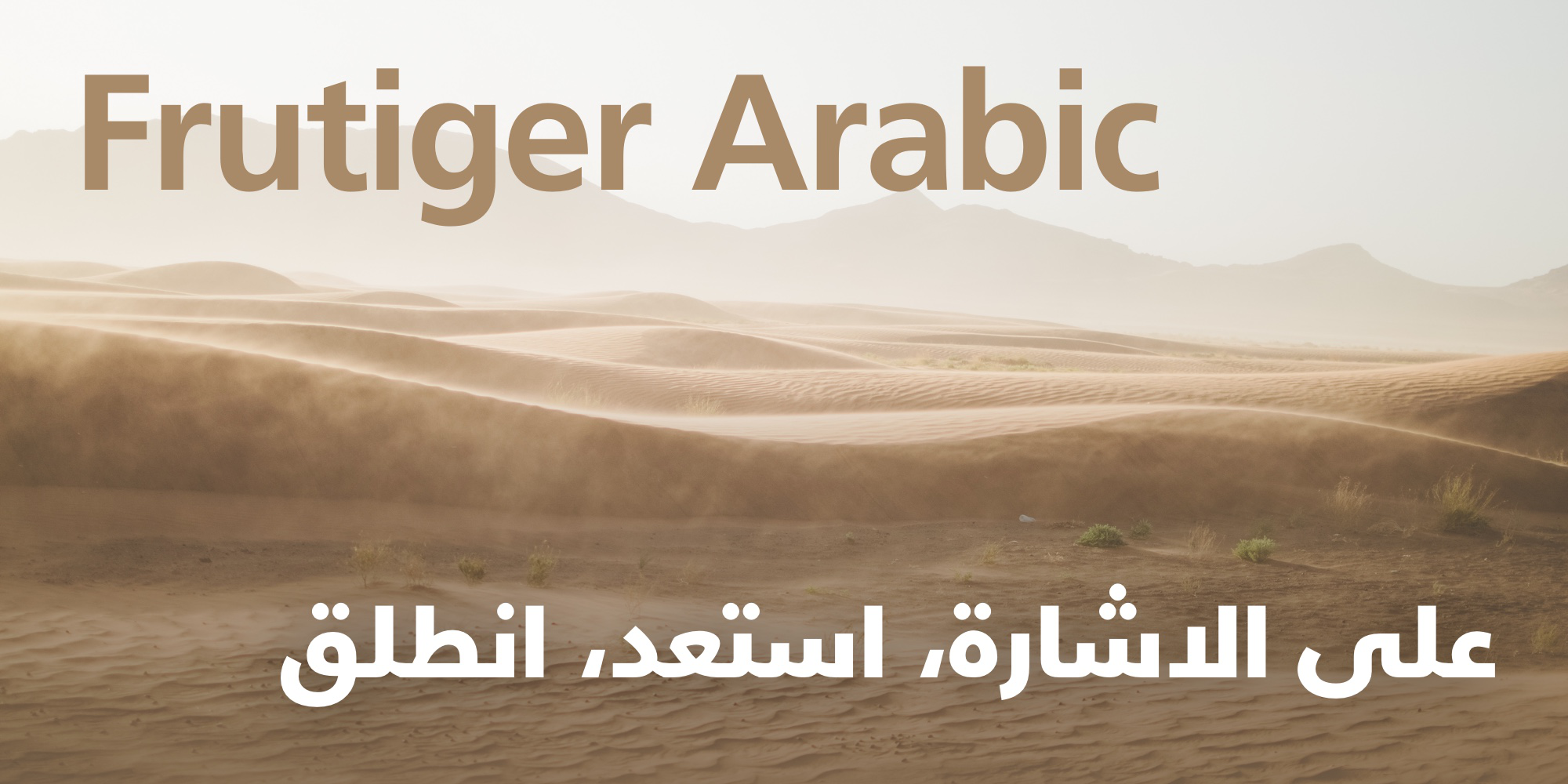
Frutiger Arabic Font is perfect for Middle Eastern corporate branding, Arabic language publications, Islamic cultural center signage, bilingual wayfinding systems, Arabic educational materials, Gulf region business presentations, international airport displays, and multicultural design projects that require harmonious typography with Arabic script character and cross-cultural communication sophistication.
This Frutiger Arabic Font is exciting because it seamlessly blends the clarity and functionality of Adrian Frutiger's legendary Latin typeface with authentic Arabic calligraphic principles, featuring balanced character construction that ensures optimal readability in Arabic script while maintaining typographic harmony with Latin text for bilingual applications and international communications.
The Frutiger Arabic Font family includes comprehensive weights with Arabic styling, complete character sets with authentic Arabic letterforms, traditional numerals, Arabic punctuation, and cultural symbols that provide comprehensive typography solutions for Arabic and bilingual design projects requiring authentic Middle Eastern aesthetics and international appeal.
Perfect for creating clear multicultural communications and harmonious bilingual brand identities, Frutiger Arabic Font Free Download delivers the balanced typography that transforms text into elegant expressions of Arabic heritage and international communication excellence. This distinctive typeface bridges Eastern and Western typography traditions, making it essential for projects celebrating Arabic culture, Middle Eastern business, Islamic heritage, and any design requiring bilingual character with authentic Arabic sophistication and timeless cross-cultural appeal that facilitates clear communication across linguistic boundaries.